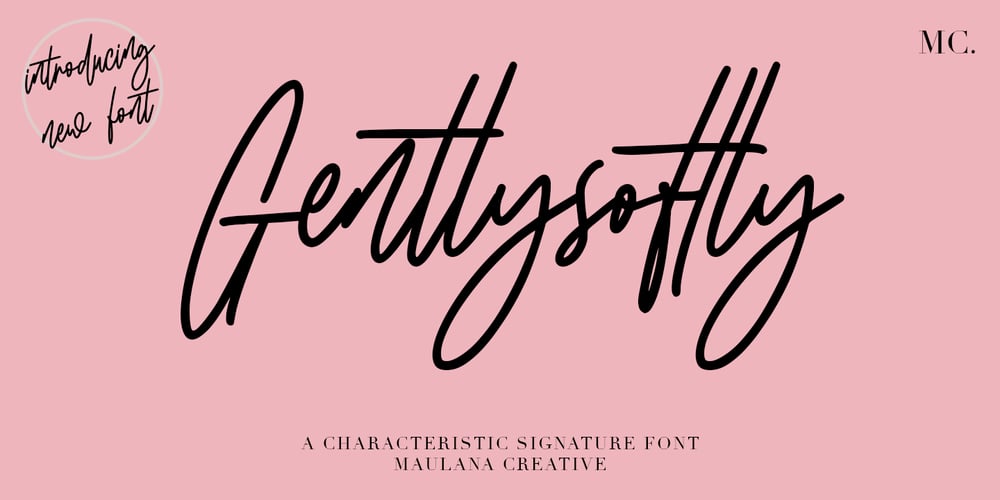
Gentlysoftly
Gentlysoftly font
Gentlysoftly Font Family was designed by Gilang Maulana and published by Maulana Creative. Gentlysoftly contains 1 styles and family package options. Gentlysoftly is a characteristic signature font of Maulana creative, with clean monoline storke, slanted, condensed and fun character. It has Opentype features of ligatures character, To give you an extra creative work. Gentlysoftly signature font support multilingual more than 100+ language. This font is good for logo design, Social media, Movie Titles, Books Titles, a short text even a long text letter and good for your secondary text font with sans or serif. Make a stunning work with Gentlysoftly signature font. Cheers, MaulanaCreative